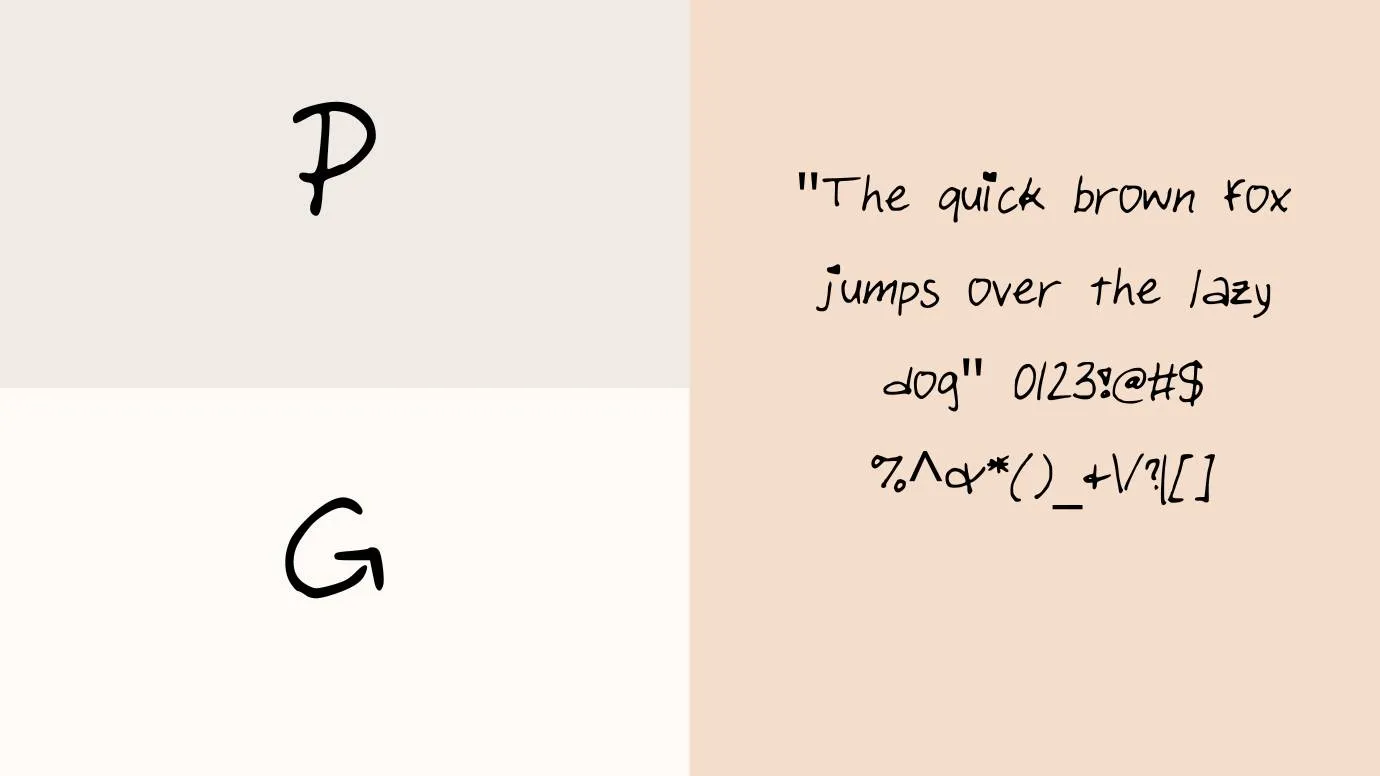
Papergirl Font Free Download
Paper Girl Font is a famous texture that was designed by an American type designer Jim Parkinson in 1993. It supports two file formats True Type Font and Open Type Font so you can download it on various devices for use such as PC, MAC, and Android.
The weight of the font is Semi-Light and its width is semi-extended. Unicode code blocks support Basic Latin, Latin-1 Supplement, and General Punctuation. You can make all personal and commercial projects by using this font.
Paper Girl Font